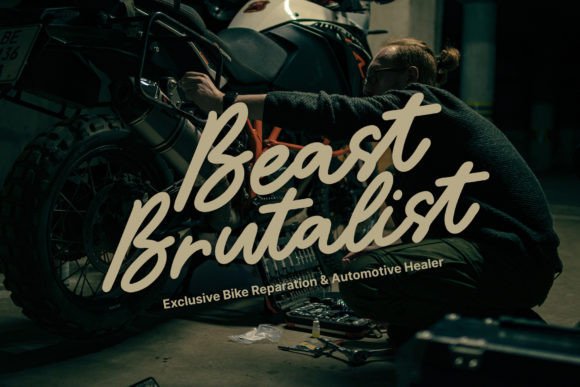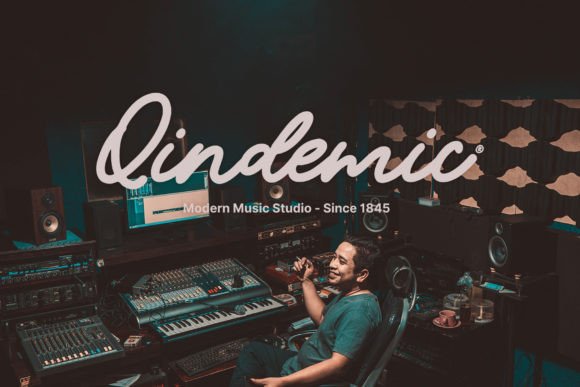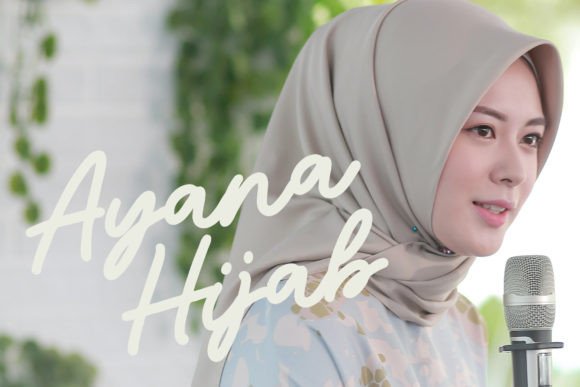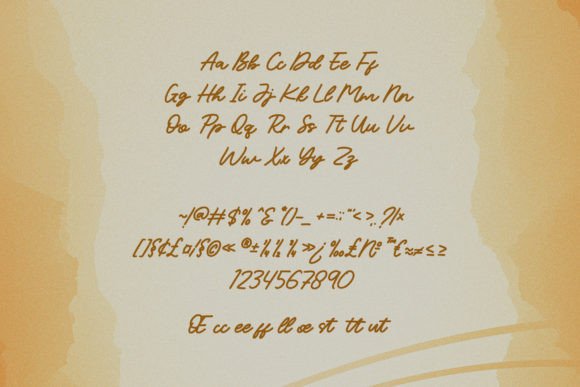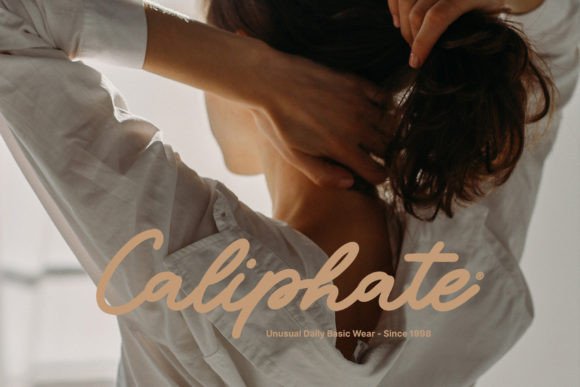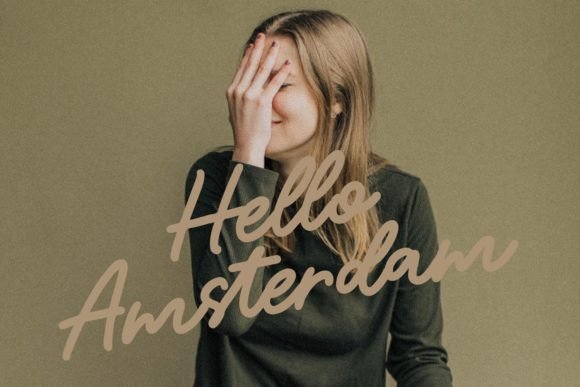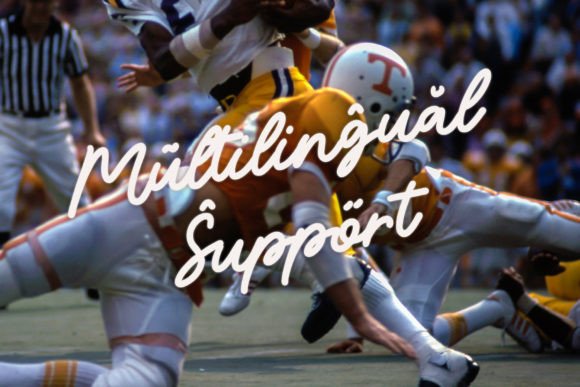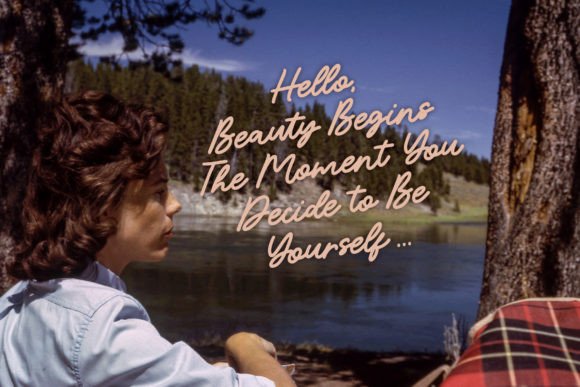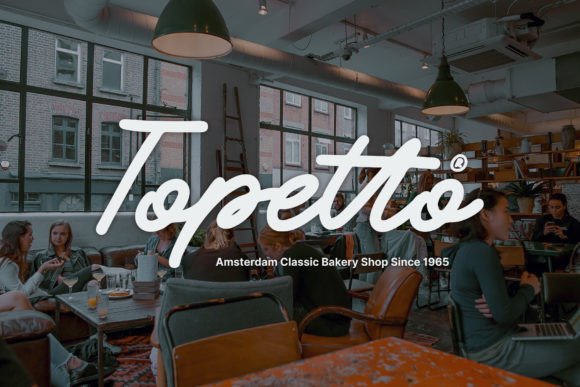
Bestopia Font
About Bestopia Font
Bestopia is a delicate, elegant, and flowing handwritten script font. It has beautiful and well-balanced characters and as a result, it matches a wide pool of designs.